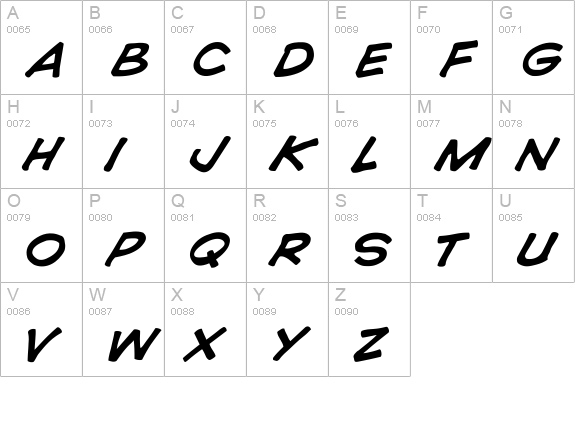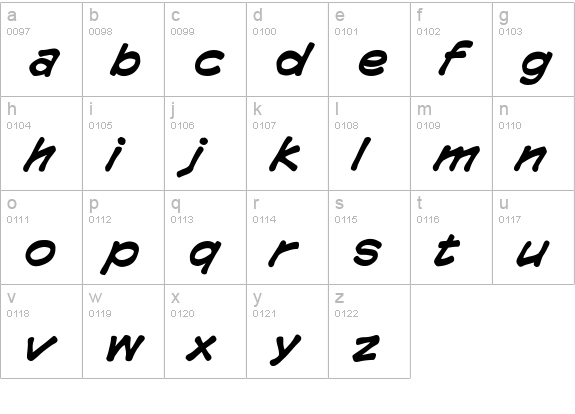
CCComicrazy-BoldItalic Font Details
Introducing CCComicrazy-BoldItalic font, a playful and dynamic typeface that adds a touch of whimsy to any project. With its bold and italic design, this font exudes energy and creativity, making it perfect for comic books, posters, and other eye-catching designs. The fun and casual style of CCComicrazy-BoldItalic is sure to grab attention and bring a smile to your audience's face. And the best part? CCComicrazy-BoldItalic is available for free download at FontsMarket.com, allowing you to easily access this unique and versatile font for all your creative endeavors. Don't miss out on the opportunity to add a touch of fun and excitement to your designs with CCComicrazy-BoldItalic!